Discover the Scariest Fonts for Impactful Design and Branding
In the world of design and branding, selecting the right font is crucial to effectively communicate a particular message or evoke certain emotions. When it comes to creating a spooky or chilling atmosphere, choosing the perfect scary font can make a significant impact. Scary fonts, also known as horror fonts, are widely used in various creative industries, especially in horror movies, Halloween-themed designs, and haunted attractions.
In this article, we will explore the scariest fonts and scary typefaces that can elevate the visual impact of your design projects. We will delve into the factors one should consider when choosing these fonts and emphasize the importance of selecting the right font to leave a lasting impression on your audience. Get ready to delve into the world of typography and discover the most impactful and attention-grabbing scary fonts for your design and branding needs.
Why fonts matter in design and branding
Fonts play a crucial role in design and branding because they have the power to evoke specific emotions and convey messages. The right font choice can significantly enhance the visual impact of a design, captivating the audience and conveying the intended message effectively. In branding, fonts help establish a consistent visual identity, contributing to brand recognition and recall. Additionally, fonts can also reflect the personality and values of a brand, creating a unique and memorable impression. This makes selecting the appropriate font a critical decision in design and branding, ensuring that the typography aligns with the overall aesthetics and resonates with the target audience.
Factors to consider when choosing scary fonts
When choosing scary fonts for your design or branding project, there are a few factors to consider to ensure the desired impact.
Legibility: While the goal is to create a scary effect, it is crucial to ensure that the chosen font remains legible. Avoid overly elaborate or distorted fonts that may hinder readability.
Tone and Atmosphere: Consider the specific theme or style of your project and select a font that complements it. Fonts with sharp edges and jagged lines can evoke a more intense and unsettling atmosphere, while fonts with a handwritten or vintage feel can add a touch of mystery or nostalgia.
Brand Alignment: If using a scary font for branding purposes, ensure that it aligns with your brand’s personality and values. The font should enhance and reinforce the overall brand message rather than conflicting with it.
Versatility: Consider the different applications of the font, such as its suitability for headlines, body text, or logo design. Choose a font that can effectively convey the desired scary effect across various mediums.
Font Pairings: If using multiple fonts in your design, ensure they complement each other. Pair a scary font with a more neutral or simple font to create contrast and balance.
By considering these factors when choosing scary fonts, you can create designs that effectively capture attention and convey the desired atmosphere of fear and intrigue
The importance of choosing the right font for impactful design and branding
Choosing the right font is crucial for creating impactful design and branding. Fonts are an essential element that communicates a brand’s personality and establishes its visual identity. In the horror genre, the right font can evoke fear, intrigue, and anticipation, setting the tone for the audience. The choice of font reflects the brand’s values, message, and overall aesthetic, allowing it to stand out from competitors. Consideration should be given to legibility, tone, and brand alignment to ensure the chosen font effectively captures attention and leaves a lasting impression on the target audience. Careful selection of fonts can enhance the overall design and branding strategy, elevating the impact and success of the project.
In conclusion, selecting the right font is essential for creating a lasting impression with design and branding in the horror genre. The scariest fonts can capture the attention of the audience and effectively communicate the brand’s personality and message. When choosing a scary font, it is important to consider factors such as legibility, tone, and brand alignment. By carefully selecting the right font, designers and marketers can enhance the visual impact of their projects and leave a lasting impression on their target audience. So, whether it’s a spine-chilling movie poster, an eerie book cover, or a haunting website, remember the power of a well-chosen scary font to create a truly impactful design.
We have curated an exceptional selection of horror fonts in this post. These fonts are all you need to create a truly spine-chilling atmosphere.
Scary Friday
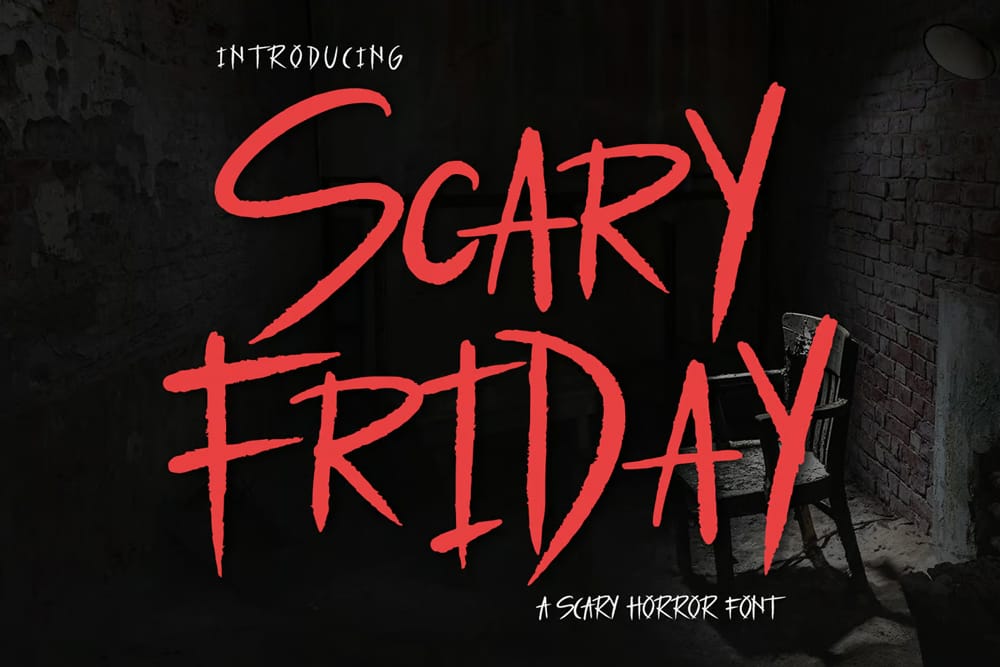
Aviorte Blackletter Font
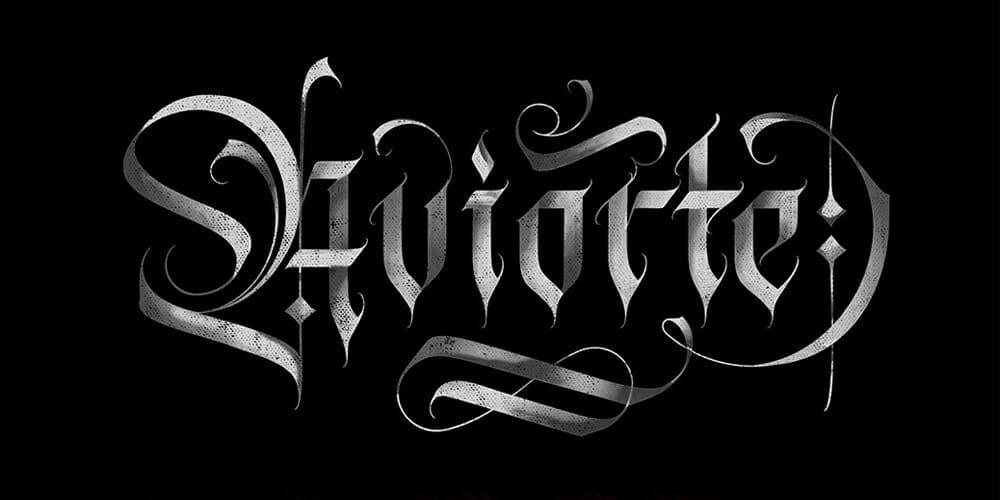
Meltdown
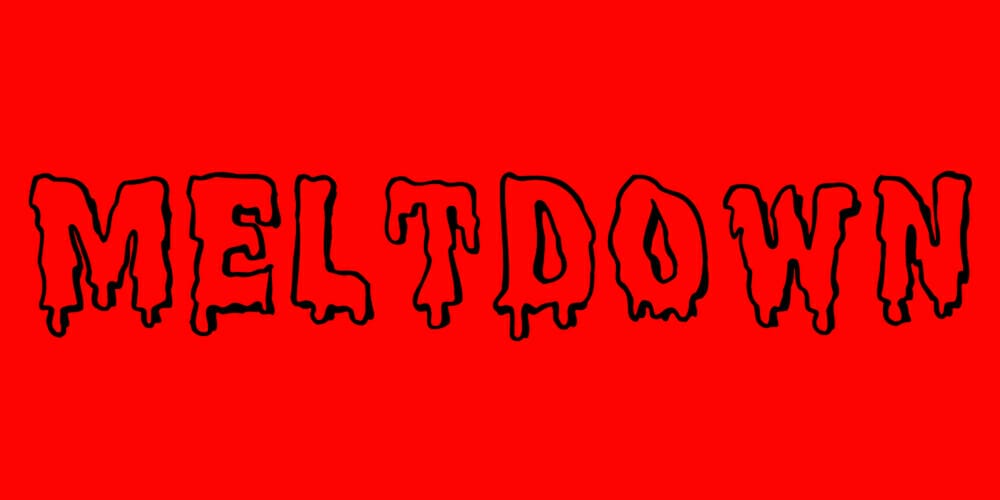
Castleton – Scary Display
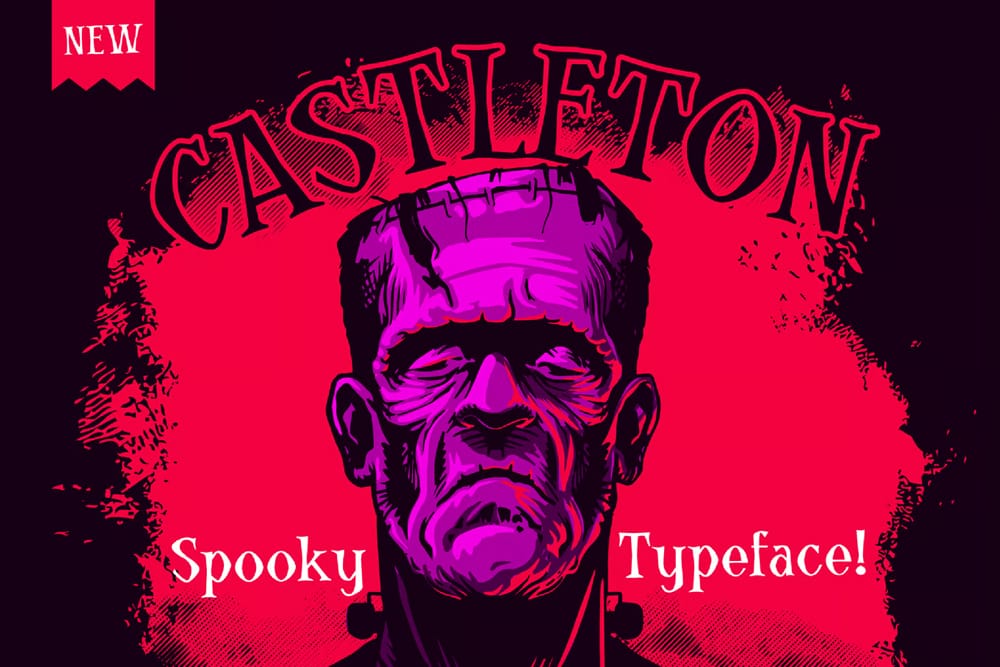
Gypsy Curse Font
Growl
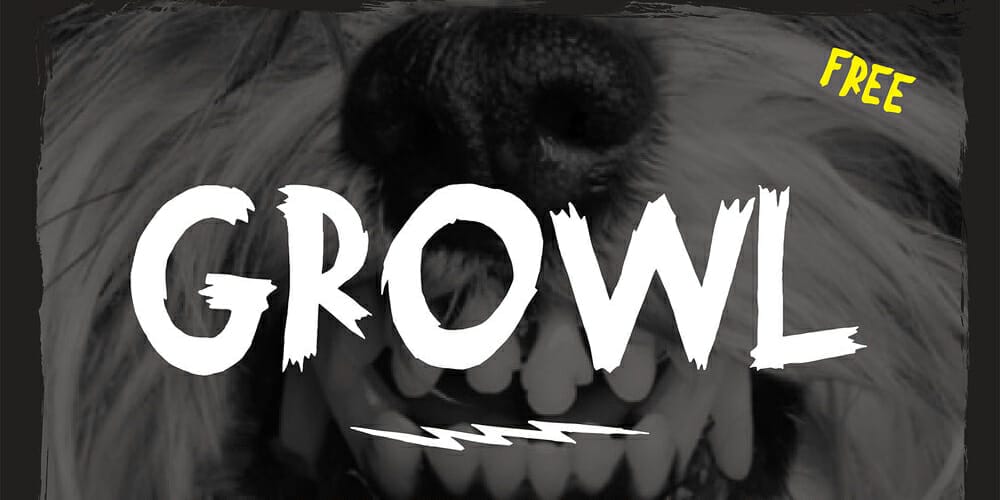
Psychomachy – Handmade Scary Font
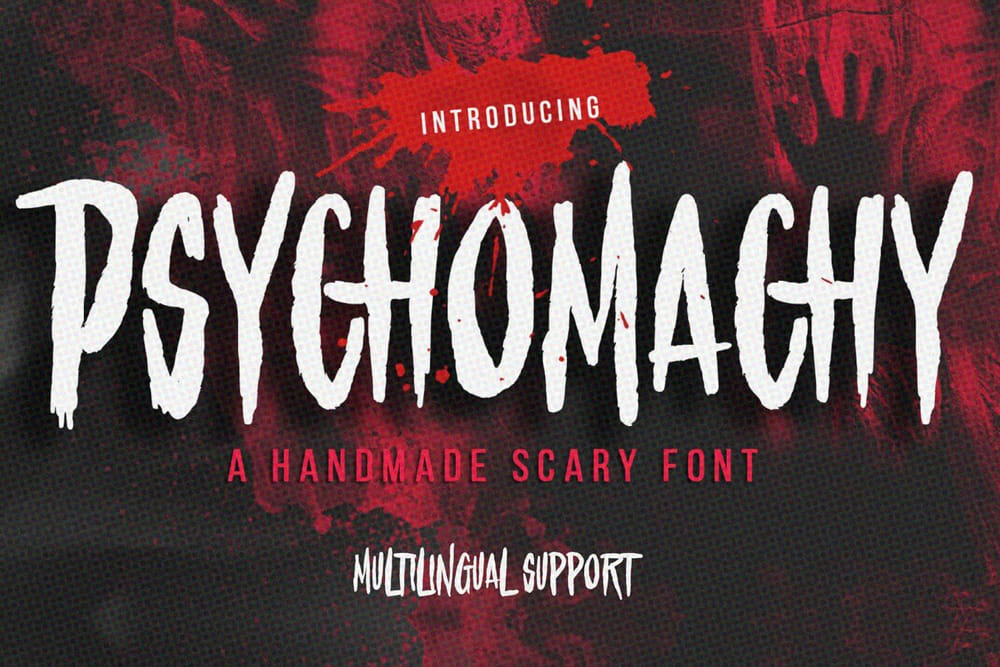
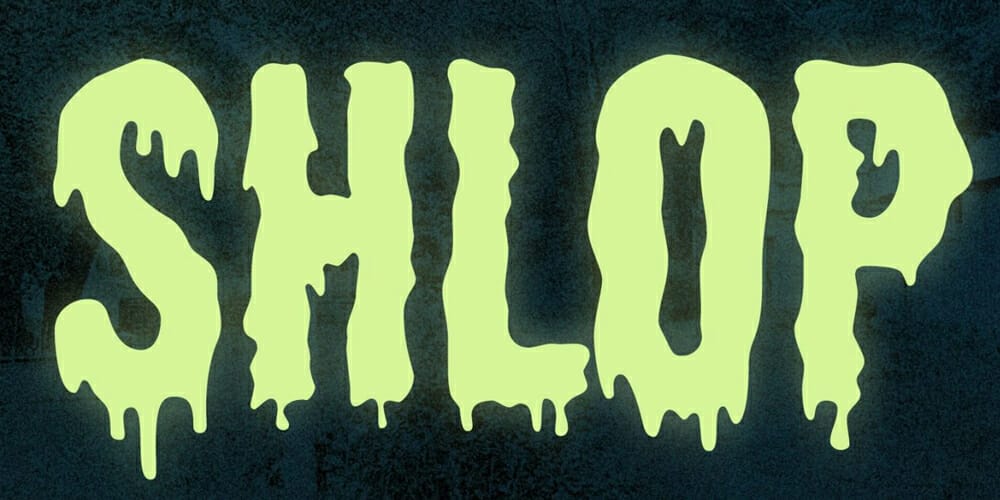
Dripping Marker
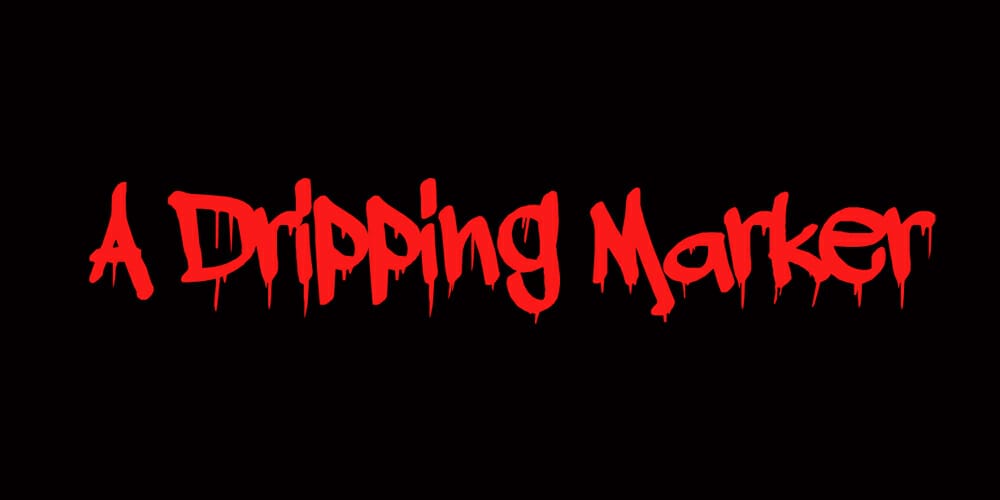
Haedus Font
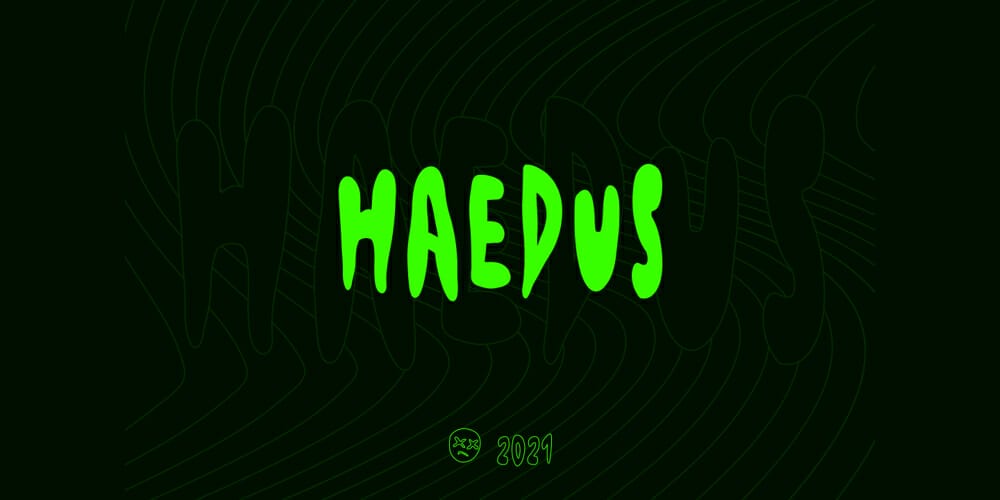
Bloody
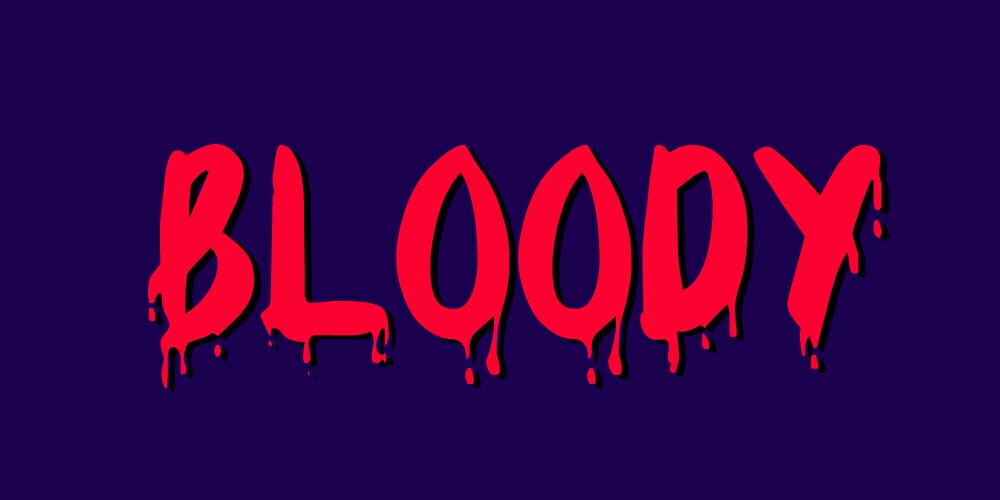
Overdrive Sunset Brush Font
Ustroke Rough Hand Drawn Font
Geizer
Alert Covid
Biohazard Font
Kricky
Externus Font
Endless Mousemade Typeface
Setanz Black Metal Font
Vampire Bats
Ravenscroft Font
Murder Danger Font
Rick and Morty Horror Font
Shlop Font
Viking Font